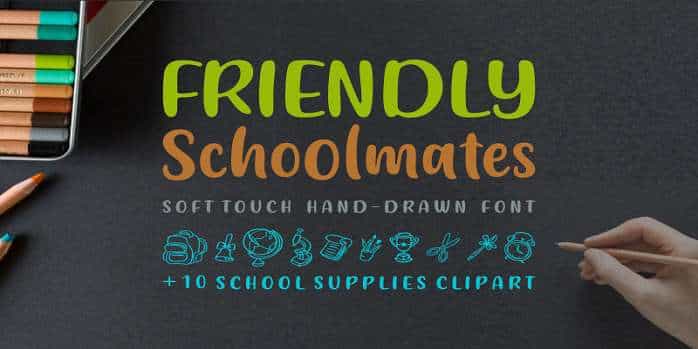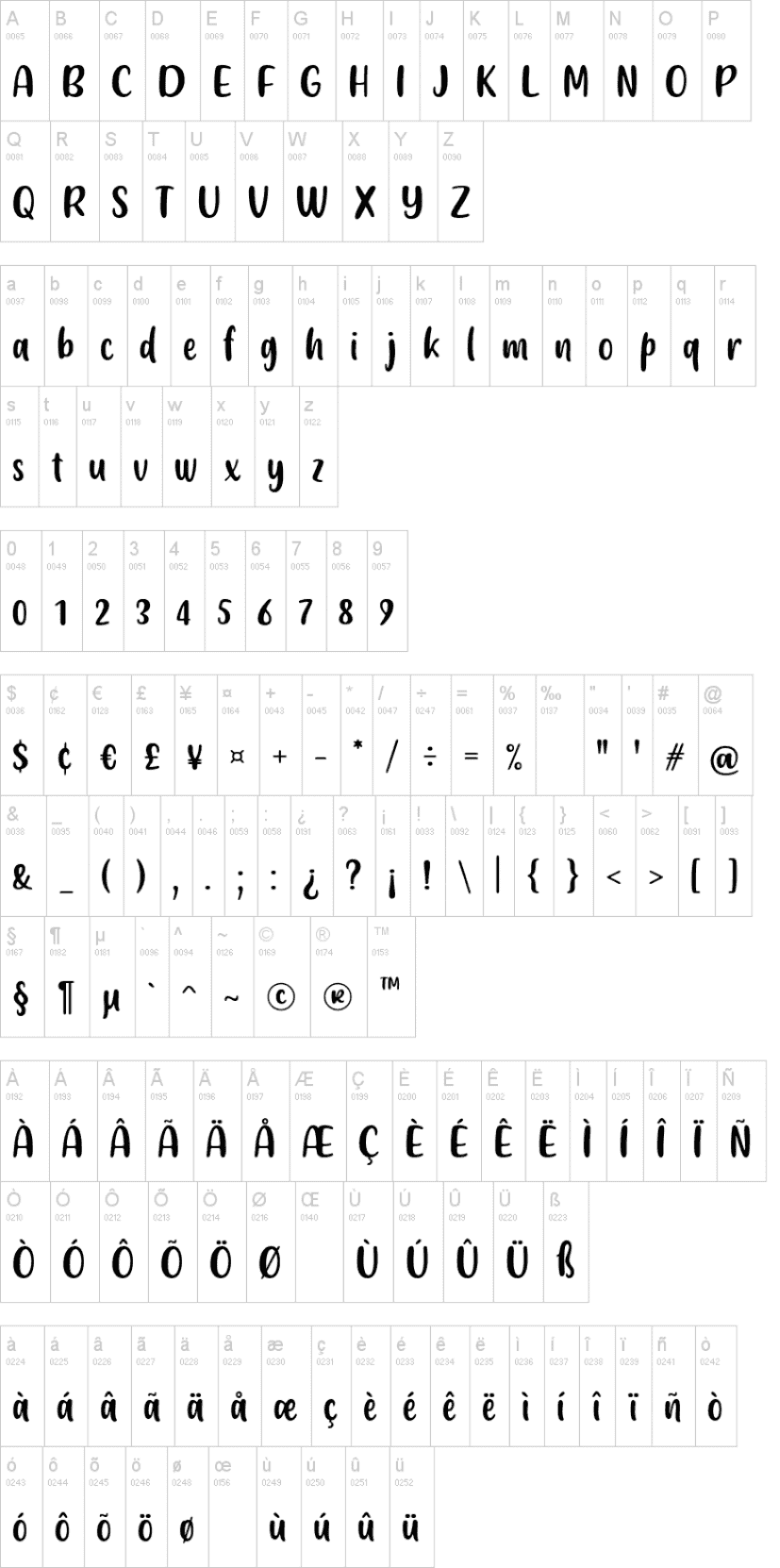
Friendly Schoolmates is a high quality font classified as Brush font which was designed by 7NTypes and could be downloaded for free for personal usage. This option includes all the letters of the English alphabet both in lower and upper case and several special symbols as well.